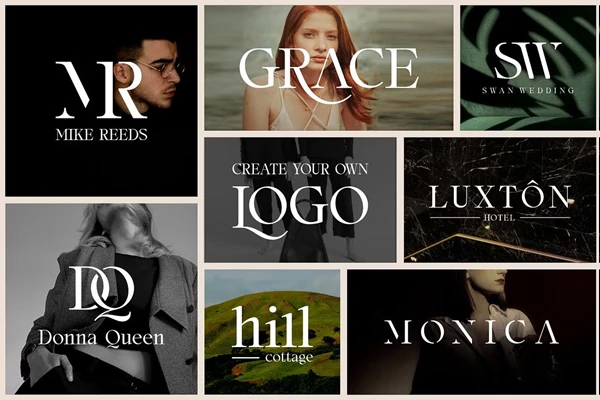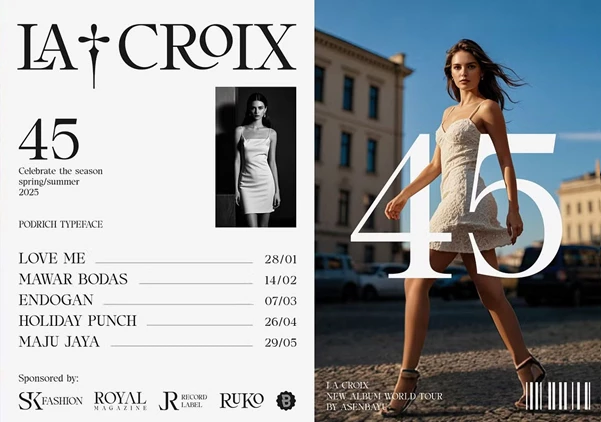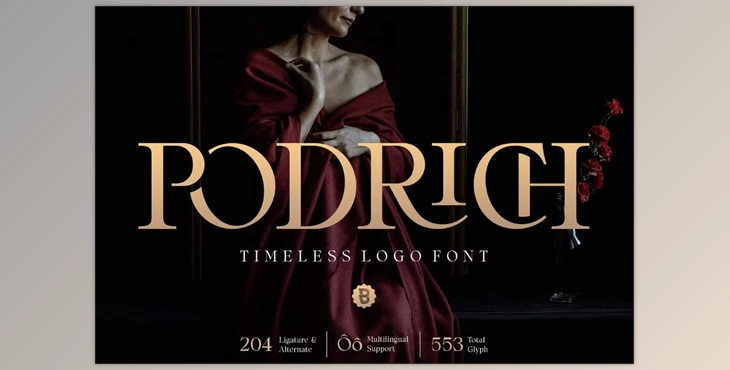
Podrich - Timeless Logo Font:
A luxurious seriffed logo font, Podrich is a logo font timeless in elegance. Strokes that are thick and thin feature an elegant balance of beauty and readability which is aided by stylistically plentiful alternates and ligautures alongside multilingual support. Offering boundless design possibilities makes Podrich perfect for designers looking to craft high-end branding, sophisticated logos, or classy editorial layouts. An extensive glyph set coupled with versatile format support renders it adaptable to numerous design projects.
Some great features of Podrich - Timeless Logo Font:
- Style Enhancements: Alternate and creative ligatures for added flair
- Glyph Set: Includes basic glyphs and punctuation, spelling
- Language Support: Supports many world languages
- Design Overview: Elegantly crafted serif typeface with luxurious strokes
- Use Cases: Works well for branding and editorial design including posters and logo